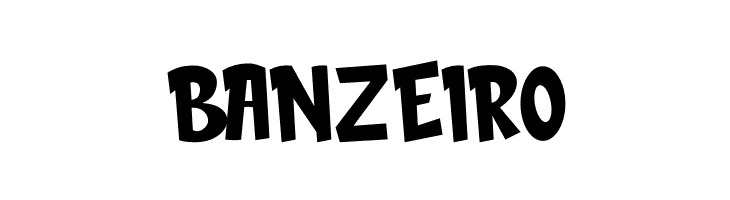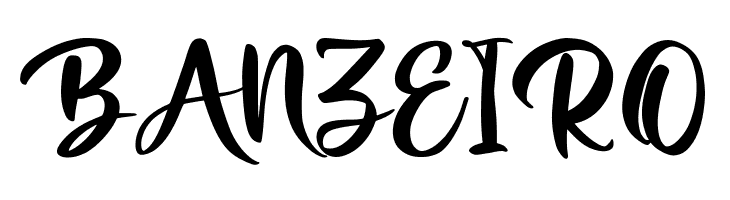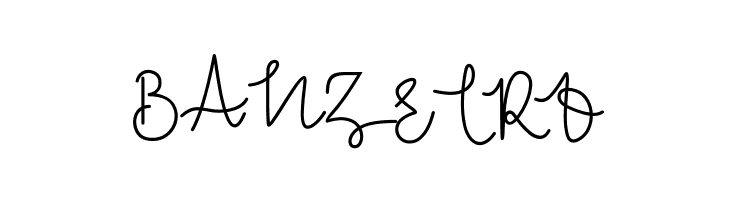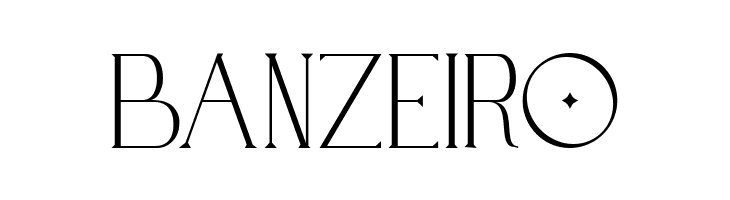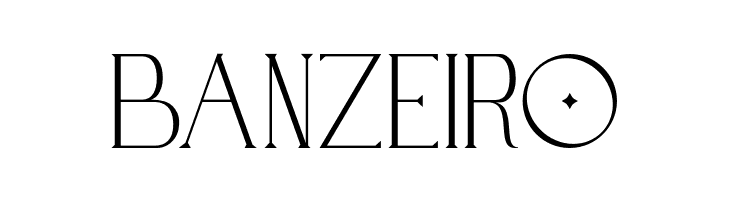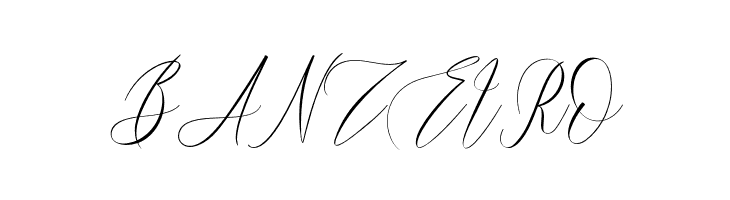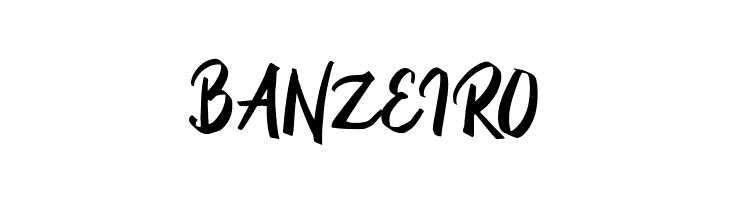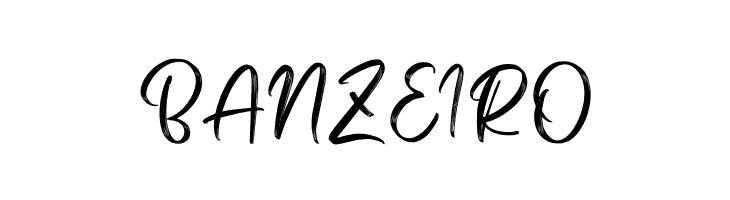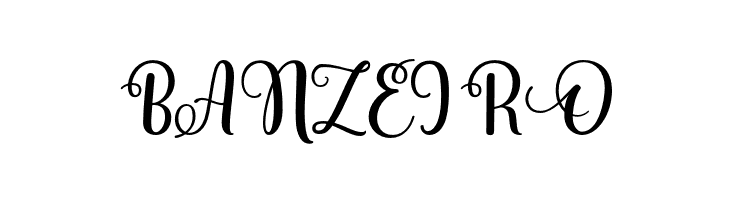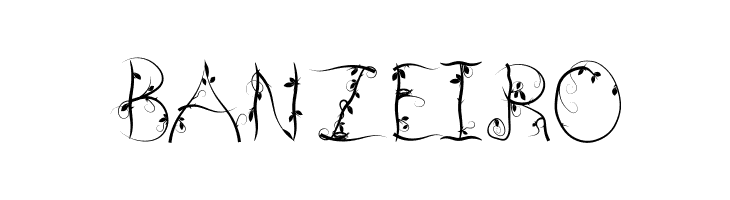
A dynamic and expressive handwritten font with fluid strokes and natural rhythm.
A decorative font with vine-like embellishments and organic flourishes.
A bold, expressive script font with a modern, handwritten style.
A bold, handwritten-style font with fluid, dynamic strokes.
A bold, sketch-like font with a dynamic, hand-drawn appearance.
A geometric, modular font with a futuristic and digital aesthetic.
A playful, comic-style font with bold, hand-drawn characteristics.
A bold, brush script font with dynamic strokes and a hand-painted look.
A dynamic, brush-style font with bold, expressive strokes.
A decorative font with a playful, artistic style featuring brick and wire patterns.
A decorative and whimsical font with intricate brick and wire-like embellishments.
A whimsical and decorative font with playful embellishments.
A dynamic script font with fluid, sweeping strokes and a modern calligraphic style.
A sophisticated serif font with elegant flourishes and classic elements.
An elegant italic typeface with flowing, cursive design and distinctive swashes.
A playful, bold font with rounded, thick strokes and a slightly slanted, dynamic appearance.
An elegant, cursive font with flowing, interconnected letters.
A charming and elegant script font with flowing, cursive letterforms.
A delicate and flowing monoline script font with a light, elegant style.
A whimsical, elegant cursive font with playful loops and smooth flow.
An elegant and flowing script font with ornate uppercase and smooth lowercase letters.
An elegant cursive font with decorative uppercase and flowing lowercase letters.
A modern, elegant script font with flowing, handwritten characters.
An elegant, cursive script font with flowing, connected characters.
A lively and elegant script font with flowing, cursive letterforms and whimsical charm.
An elegant and playful script font with bold, expressive characters.
A modern, elegant font with slender letterforms and high contrast strokes.
A modern serif font with elegant, elongated letterforms and moderate contrast.
A bold, expressive handwritten font with fluid and dynamic strokes.
A dynamic, brush-style font with expressive, fluid strokes.
A playful, casual handwritten font with flowing, irregular letterforms.
A graceful script font with flowing, interconnected letters and a calligraphic style.